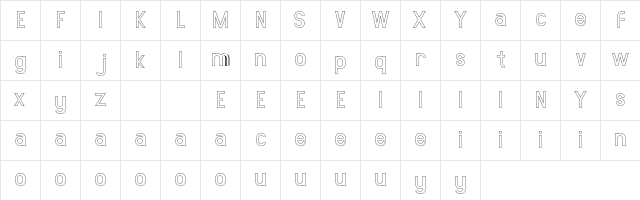
AMORICA SANS DEMO Stroke Regular
| Foundry | Edric Studio |
| Designer | M Nouval |
Design Context for AMORICA SANS DEMO Stroke Typeface
AMORICA SANS DEMO Stroke offers clean, dependable letterforms without strong stylistic allegiance, making it a practical choice for designers who need flexibility.